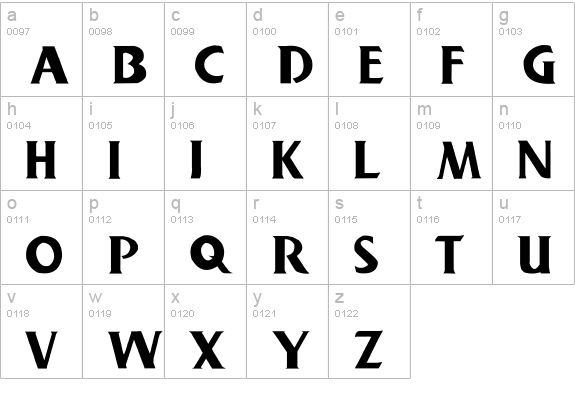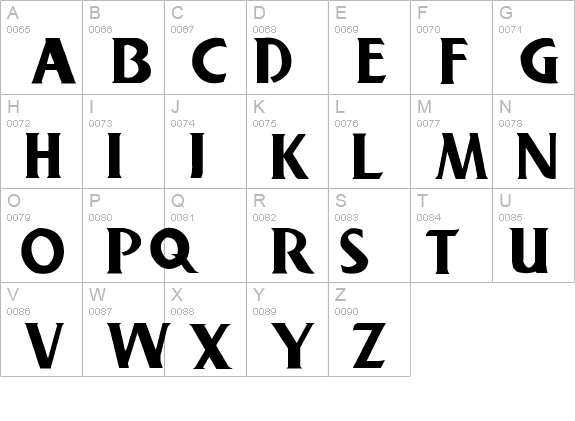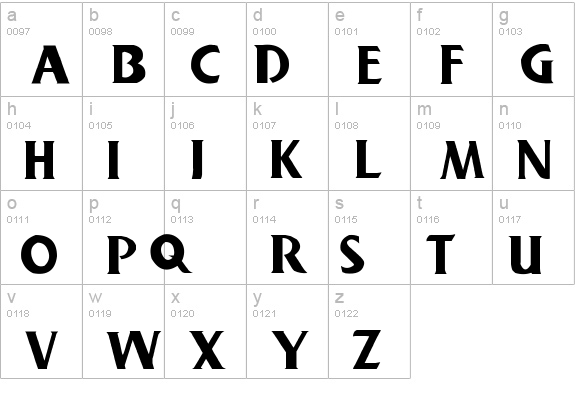
BuschGardenz font is a whimsical and playful typeface that is perfect for adding a touch of fun to your design projects. With its unique letterforms and charming style, BuschGardenz is sure to catch the eye of your audience. This font is versatile and can be used for a variety of projects, from branding to invitations to social media graphics. The best part? BuschGardenz font is completely free to download at FontsMarket.com. You can easily add this delightful font to your collection without any cost. So why wait? Download BuschGardenz font today and start creating beautiful designs that stand out from the crowd!